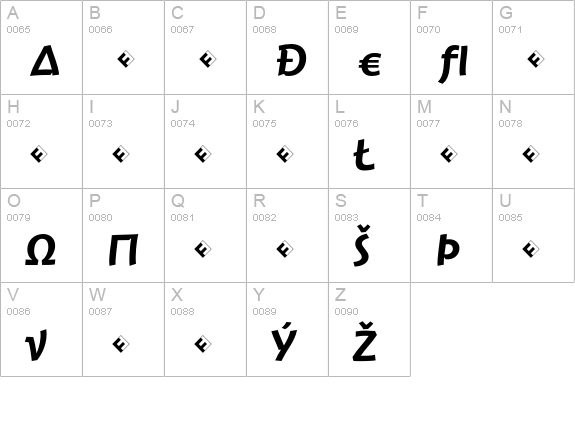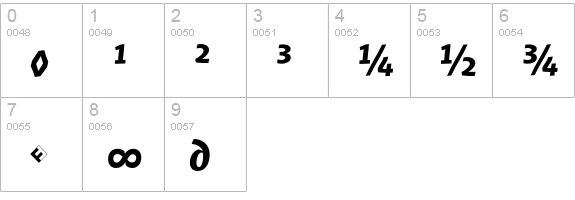
Introducing Jambono-MediumExpert, a sleek and modern font that exudes professionalism and sophistication. With its clean lines and balanced letterforms, this typeface is perfect for a wide range of design projects, from corporate branding to editorial layouts. What sets Jambono-MediumExpert apart is not only its impeccable style, but also its accessibility. This versatile font is freely available to download at FontsMarket.com, making it an indispensable tool for designers on a budget. Whether you're creating a logo, designing a website, or crafting a magazine spread, Jambono-MediumExpert offers the versatility and elegance needed to elevate your project to the next level. Its medium weight strikes the perfect balance between legibility and visual impact, ensuring that your message is always clear and impactful. Every letter in Jambono-MediumExpert has been meticulously crafted with attention to detail, resulting in a harmonious and consistent typeface that is pleasing to the eye. Its modern yet timeless design makes it a versatile choice for both print and digital applications, ensuring that your work will stand the test of time. With Jambono-MediumExpert, you have the freedom to explore your creativity without limitations. Its extensive character set includes a variety of language support, allowing you to reach a global audience with ease. Whether you're designing a website for an international brand or creating a multilingual publication, Jambono-MediumExpert has got you covered. So why wait? Download Jambono-MediumExpert for free at FontsMarket.com and unleash your design potential today. Elevate your projects with this exquisite font and experience the power of seamless typography. Don't settle for ordinary, choose Jambono-MediumExpert and make a lasting impression.